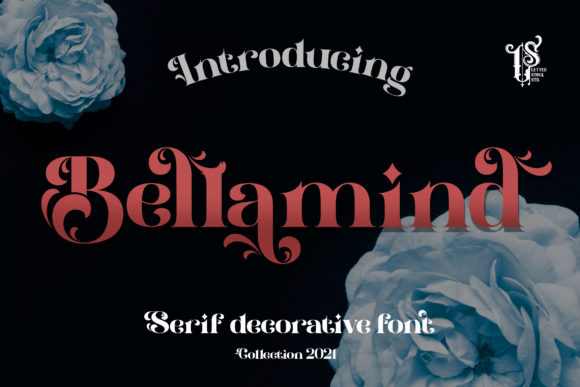
Introducing Bellamind, a captivating serif font that will ignite your imagination and transform your creative visions into breathtaking realities. Meticulously crafted to evoke the allure of vintage posters, this font exudes an air of elegance and sophistication that will captivate your audience.
Immerse yourself in the intricate details and graceful curves of Bellamind, a font designed to elevate your lettering artistry to unparalleled heights. Each stroke is a testament to the passion and dedication of its creator, Gumacreative, who has poured their soul into this masterpiece.
With Bellamind, you'll embark on a journey through the annals of typography, where classicism meets modernity. Its timeless appeal will lend an air of sophistication to your designs, while its subtle nuances add a touch of intrigue and charm.
Whether you're crafting logos that demand attention, designing posters that leave a lasting impression, or creating invitations that ignite anticipation, Bellamind will be your steadfast companion. Its versatility knows no bounds, adapting seamlessly to a myriad of styles and themes.
So, if you seek a font that will ignite your creativity, enchant your audience, and leave an enduring mark on the world, look no further than Bellamind. Let its timeless beauty inspire your next masterpiece and elevate your lettering to new heights.